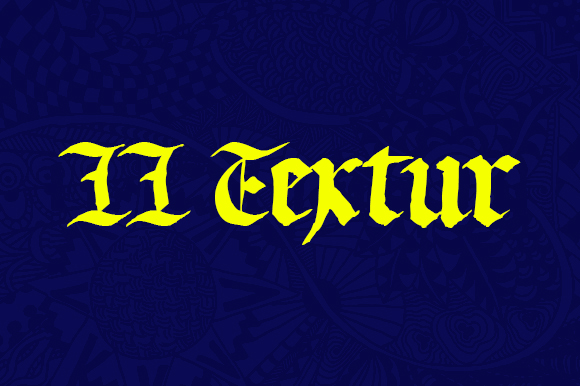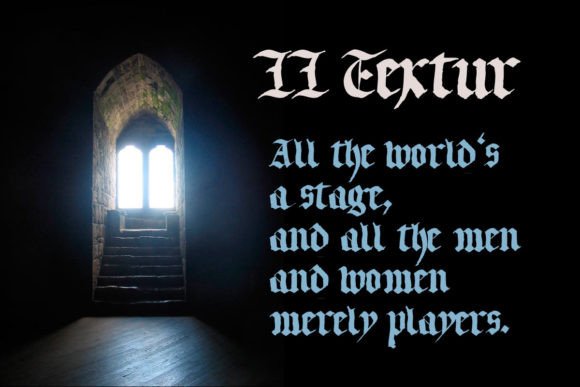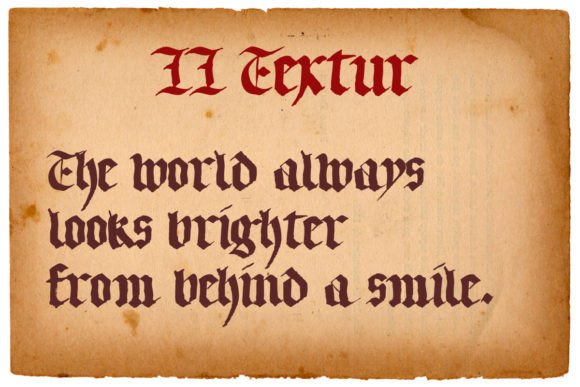
LL Textur Font
LL Texture presents a stunning Blackletter styled font, characterized by its timeless elegance and vintage allure. This exquisite typeface exudes sophistication, making it a perfect choice for projects aiming to evoke a classical ambiance.
With its intricate details and authentic charm, LL Texture adds depth and character to any design. From branding to editorial layouts, it offers versatility and flair, enriching visual narratives with its distinctive features.
One of the key strengths of LL Texture lies in its ability to balance aesthetics with functionality. Despite its ornate flourishes, the font maintains readability across various platforms and devices. This ensures that your message comes across clearly, whether it’s on a website or in a printed publication.
The versatility of LL Texture extends to its application in different design contexts. Whether you’re creating a logo, poster, or website header, this font brings a touch of elegance and sophistication to the table. Its classical vibe resonates with audiences, leaving a lasting impression.
Beyond its visual appeal, LL Texture carries a sense of tradition and heritage. It harkens back to a bygone era, yet its timeless quality ensures its relevance in contemporary design. This blend of the old and the new makes LL Texture a valuable asset for designers seeking to create memorable and impactful visuals.
In the ever-evolving landscape of design trends, LL Texture remains a steadfast choice for those who appreciate the beauty of classic typography. Its enduring popularity speaks to its ability to adapt and endure in a fast-paced industry.
In conclusion, LL Texture is more than just a font—it’s a symbol of elegance, sophistication, and timeless style. Its versatility and charm make it a favorite among designers looking to make a statement with their work. With LL Texture, your designs are sure to stand out and leave a lasting impression on your audience.